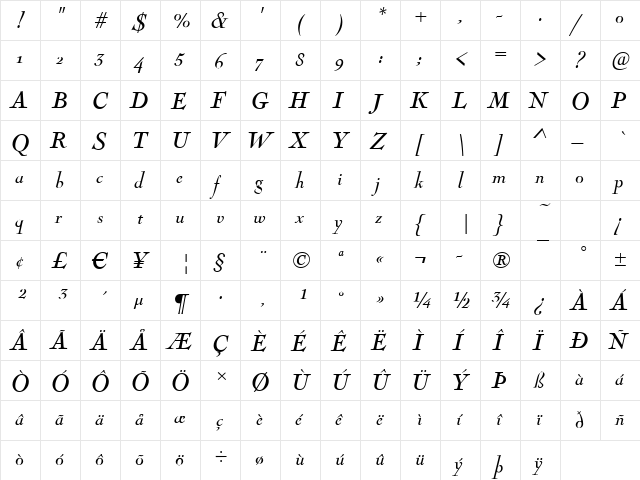
Nicolas Italic Font Preview
Nicolas Italic
Nicolas Italic Font Details
Design Context for Nicolas Typeface
Nicolas takes a measured approach to typography — its balanced proportions and neutral character make it a reliable workhorse for both digital and print work. The slanted form adds forward momentum and visual energy.
Pro Tip: Try Nicolas for annotation and caption copy alongside an upright companion — the contrast in angle creates a dynamic but ordered typographic system.